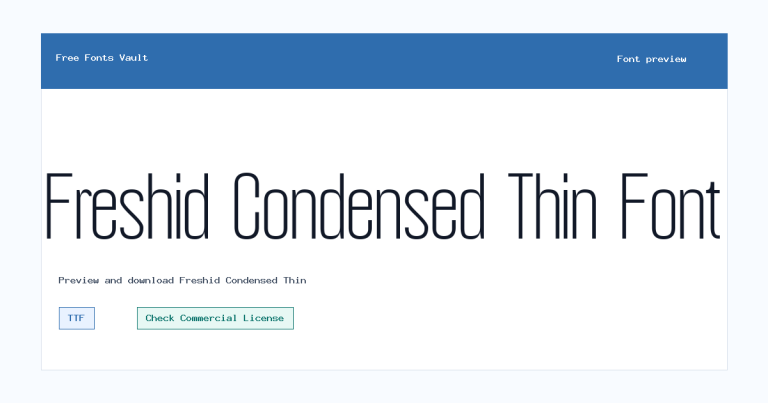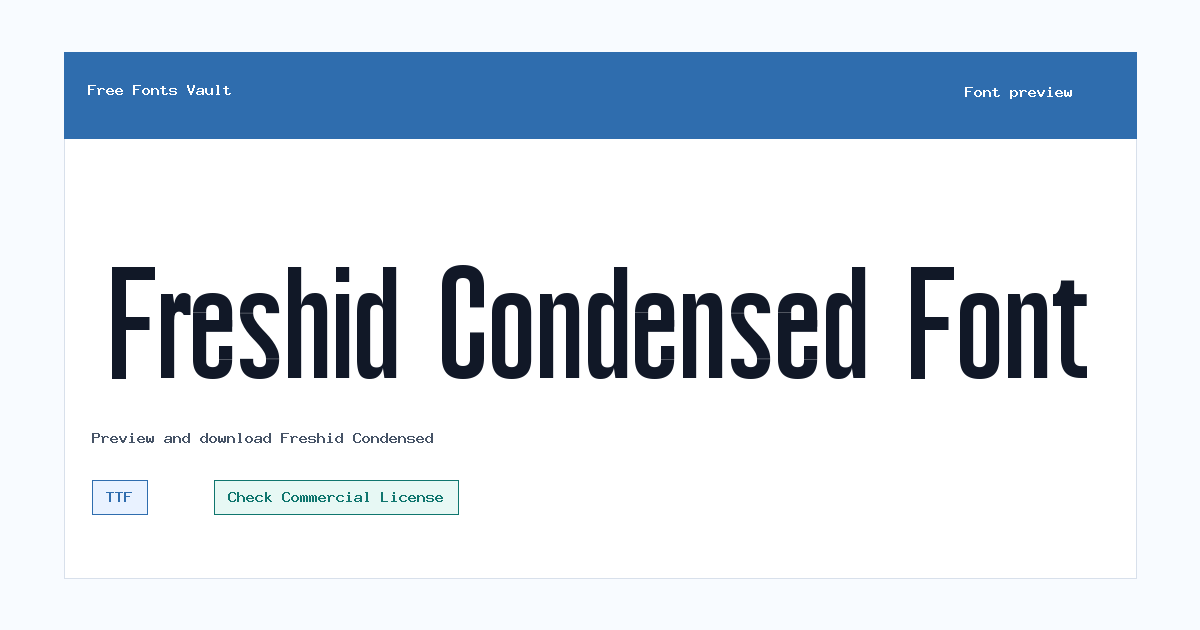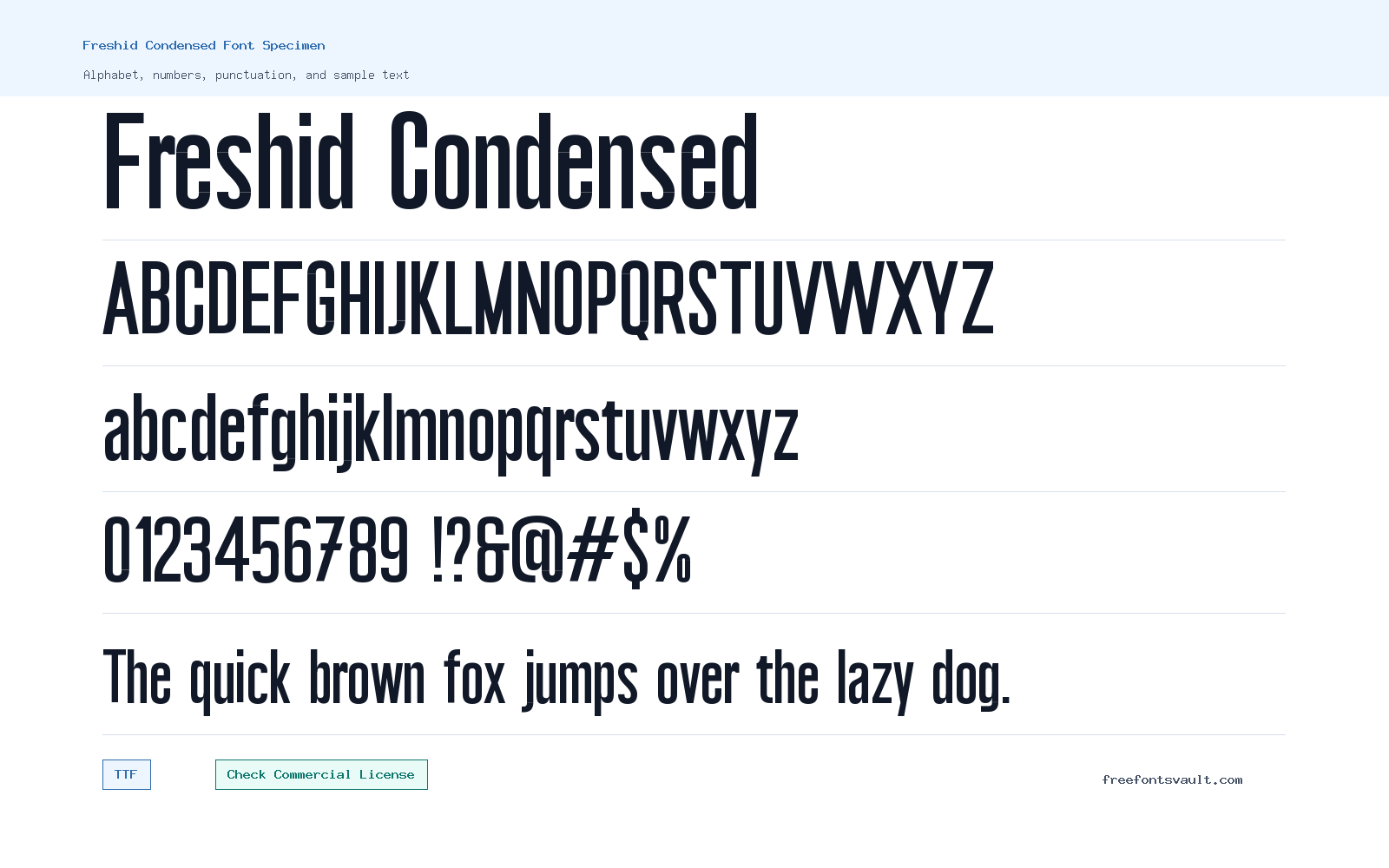
Freshid Condensed
Freshid Condensed font.
Freshid Condensed is a narrow display font family for titles, headers, and compact layouts where you want strong lettering without taking up too much horizontal space.
About Freshid Condensed
Freshid Condensed uses a condensed shape, so it can fit longer words into tighter spaces than a standard-width display face. That makes it useful for posters, thumbnails, packaging mockups, social graphics, and bold web headings. The available files include regular and bold OTF styles, plus a TTF demo variable font file, giving visitors a few ways to test the family before choosing a style.
Use the preview box to test real words, not just the sample text. Condensed fonts can look sharp in short headlines, but they may feel cramped in long paragraphs or small sizes. Try uppercase, mixed case, numbers, and punctuation before downloading, especially if your design needs clean spacing in menus, labels, or multi-line titles.
- Condensed display proportions suited to space-saving headlines and short text
- Posters, banners, social media graphics, and YouTube thumbnails
- Brand mockups, packaging concepts, logos, and compact title layouts
For best results, use Freshid Condensed in short lines where its narrow form can stand out. Pair it with a simple, readable sans serif for body text, and avoid using it for dense paragraphs or very small captions. The regular Freshid Condensed style is the safest starting point in the family because it keeps the narrow look without leaning or becoming too heavy. Try it for the main title first, then use the lighter, bolder, or italic variants only where the design needs contrast. This keeps a set of graphics feeling consistent. It is also a useful control style when comparing the Freshid family, because the regular cut makes the spacing and condensed rhythm easier to judge. Also test it with both short brand names and longer labels before choosing final spacing.
What is Freshid Condensed best used for?
It is best for short display text such as headlines, posters, social graphics, packaging mockups, and compact title designs.
Can I use Freshid Condensed for body text?
It is better suited to display use. Test carefully before using it in paragraphs, because condensed lettering can reduce comfort at small sizes or in long text.